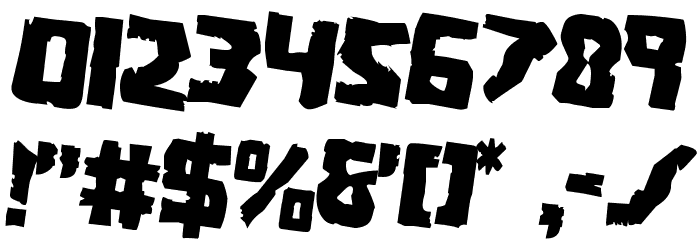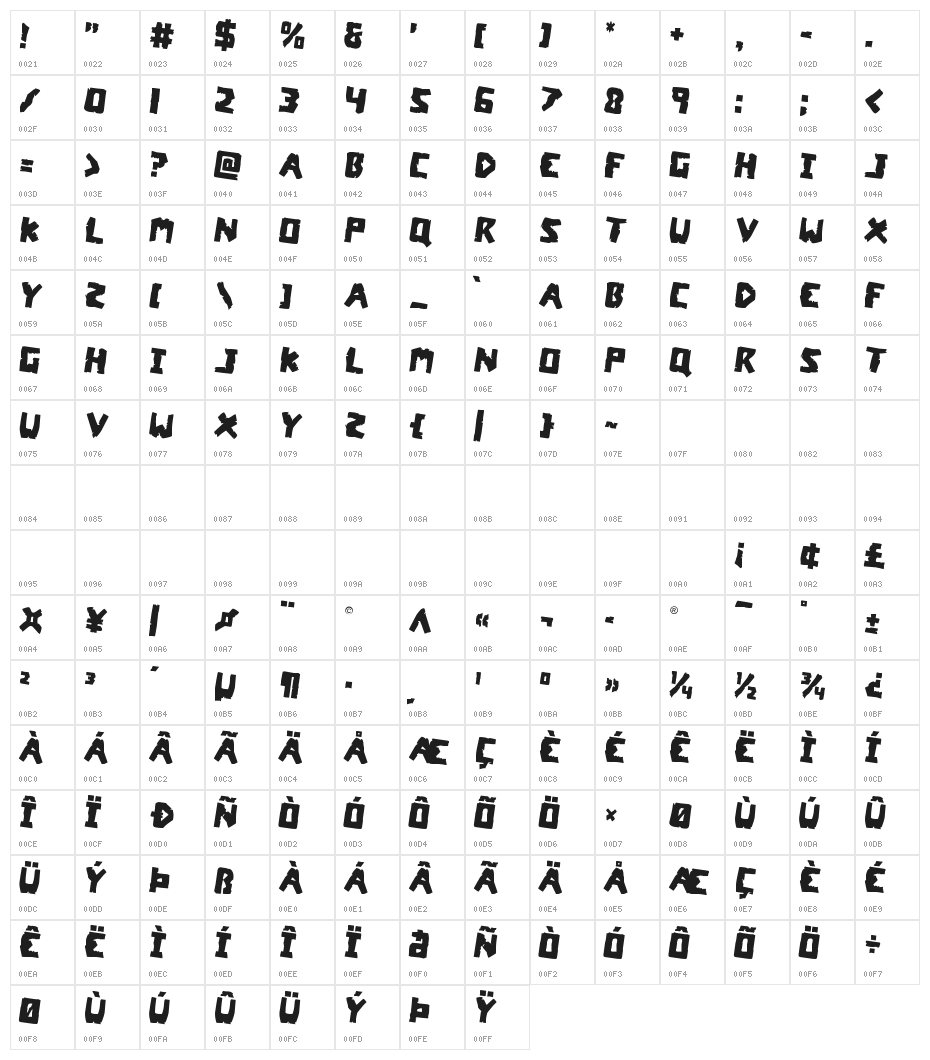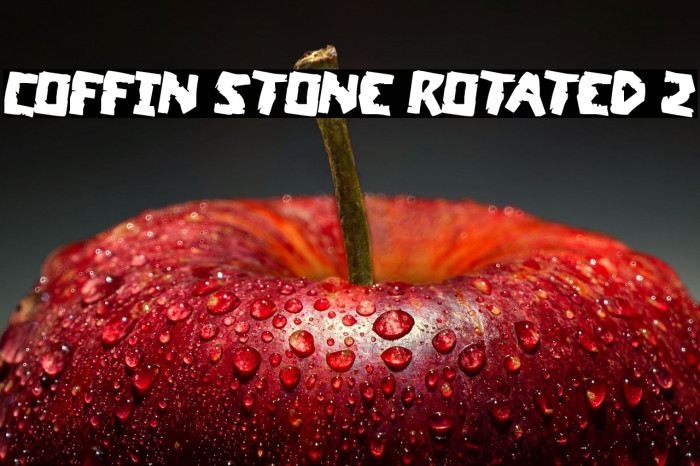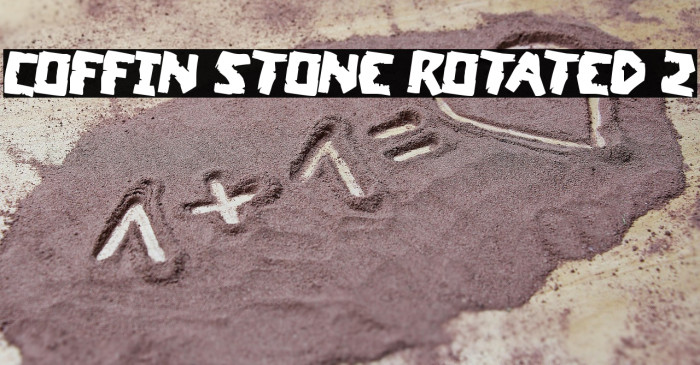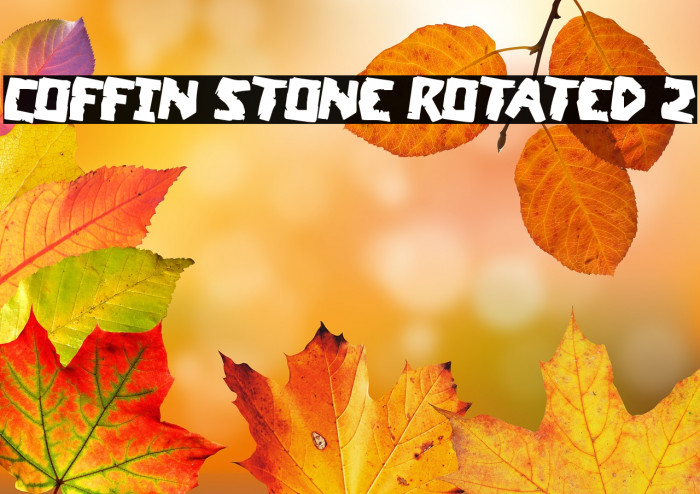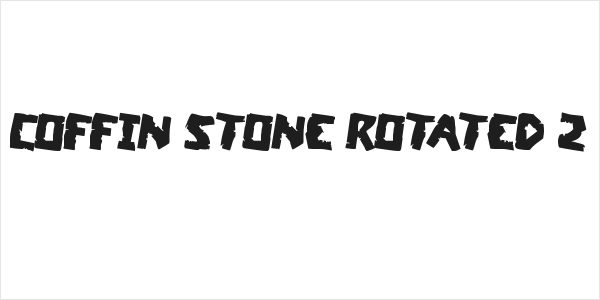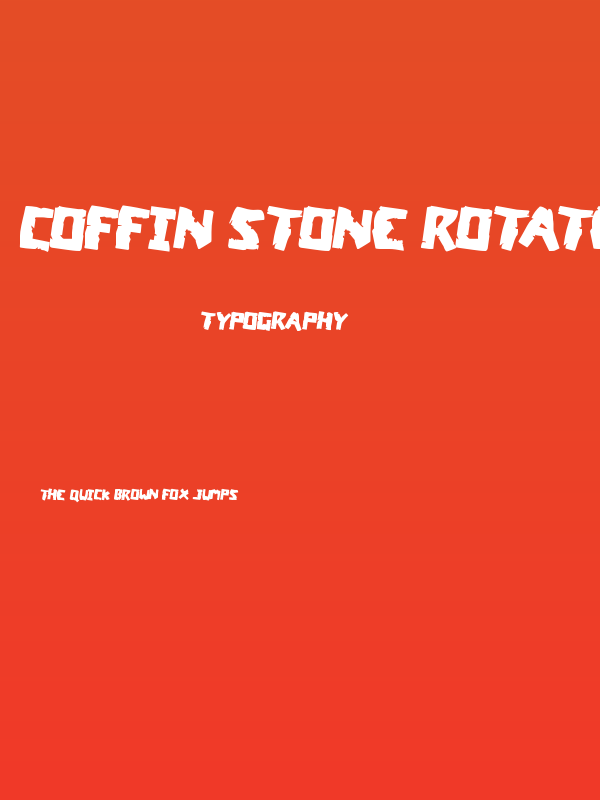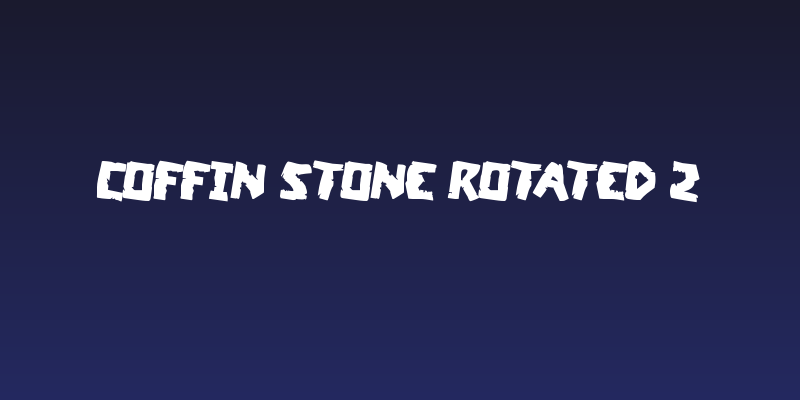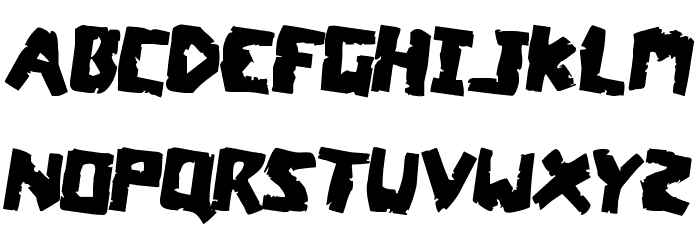
Coffin Stone Rotated 2 Font
Coffin Stone Rotated 2 Description
This font features a bold and rugged design with a distressed, grunge-like appearance. The characters are irregular and jagged, giving them a raw, edgy feel. Each letter has a unique, hand-crafted look, with uneven edges and a slightly chaotic style. The font's boldness and heavy weight make it stand out, while the rough texture adds a sense of movement and energy. It's ideal for projects that require a strong, impactful visual statement, such as posters, album covers, or branding for edgy or alternative products.
| Overall Style | Grunge, Edgy, Raw |
| Proposed Projects | Ideal for posters, album covers, edgy branding, or any project needing a strong visual impact. |